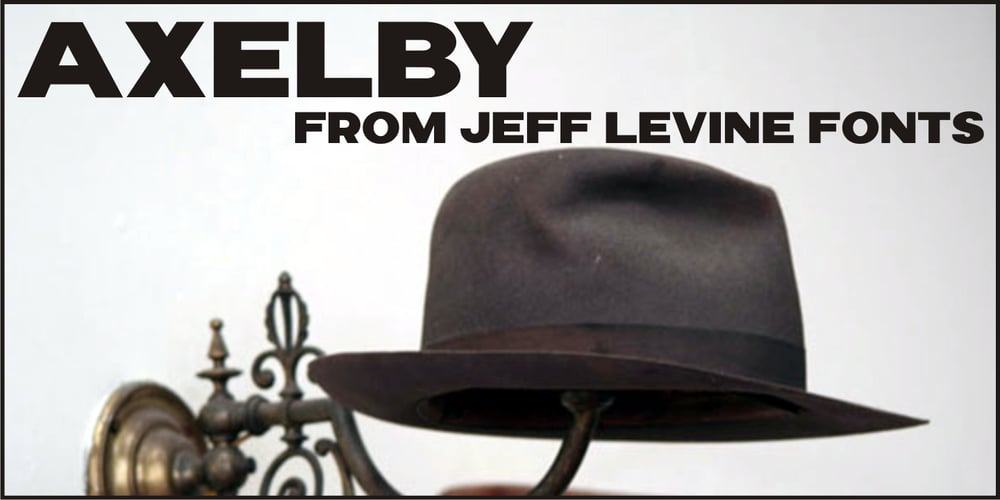
Axelby JNL
Axelby JNL font
Axelby JNL Font Family was designed by Jeff Levine and published by Jeff Levine. Axelby JNL contains 1 styles and family package options. Axelby JNL was modeled from a set of die-cut, self-adhesive cardboard letters from the 1960s. The design is reminiscent of some early wood type in the way it has letters of varying widths that do not conform to any set standard. The font is perfect for plain, easy-to-read and attention-getting headlines.